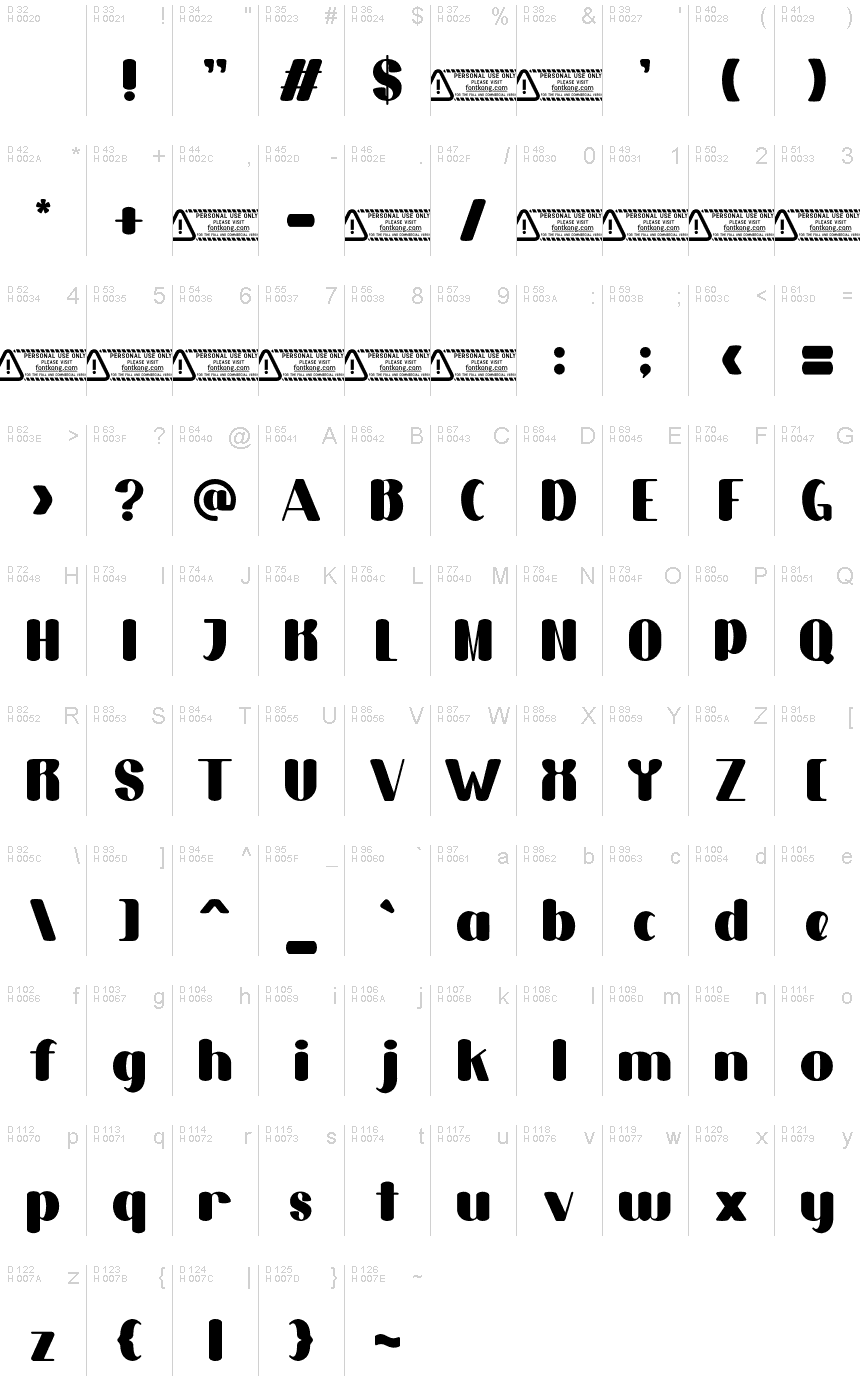
Baby Cute
Baby Cute, designed by Kong Font, brings a whimsical charm to the display font family. Its cartoon style exudes playfulness, perfectly capturing the innocence and joy associated with childhood themes. The extra-bold weight of Baby Cute ensures that each character makes a delightful impact, while its semi-condensed width allows for playful yet efficient use of space.
The aesthetic appeal of Baby Cute lies in its rounded forms and soft terminals that give it a friendly and approachable vibe. This font is ideal for projects aimed at younger audiences or any creative work that requires a touch of whimsy and lightheartedness. From children's books to party invitations, branding for kids' products, or animated content – Baby Cute is versatile enough to inject fun into various designs while maintaining readability and visual interest.